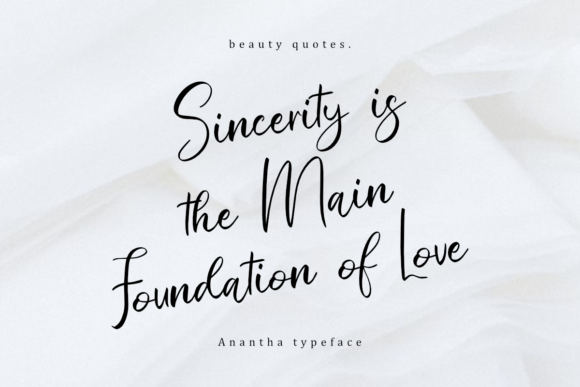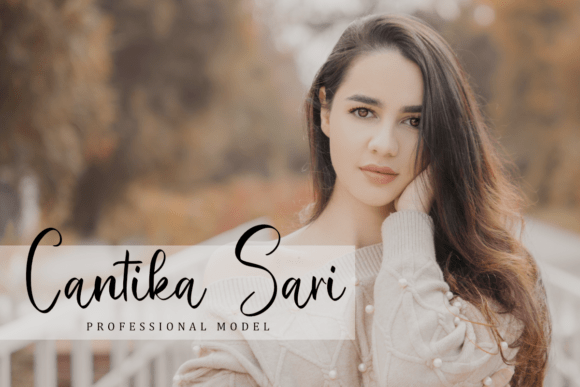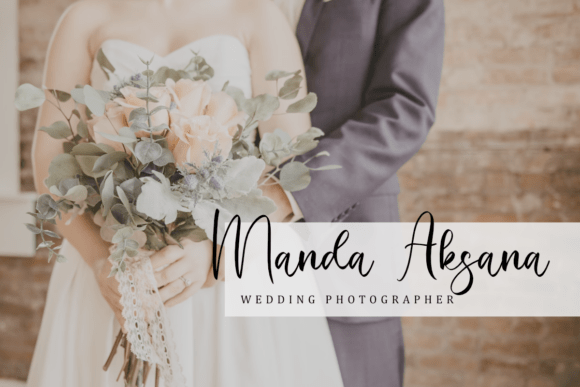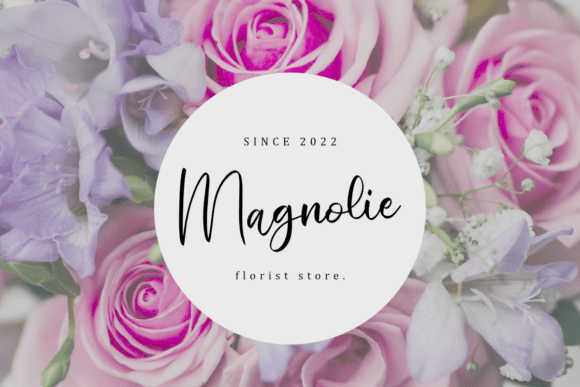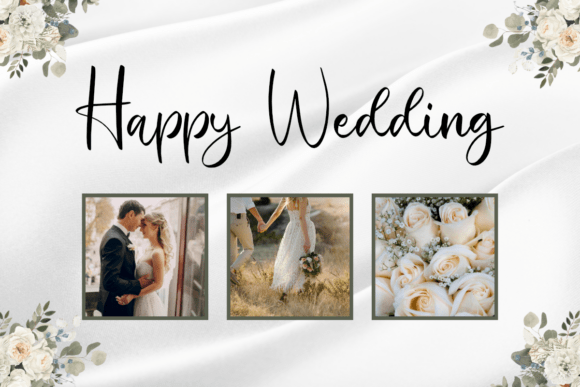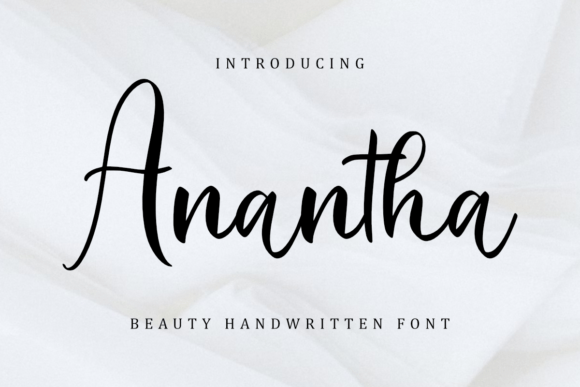
Introducing Anantha Font: The Epitome of Elegance and Femininity
In the world of typography, few fonts manage to capture the essence of elegance and femininity as effortlessly as Anantha. This stunning beauty handwritten font is a masterpiece of design, boasting flowing curves and delicate strokes that exude sophistication and refinement. Whether you’re a designer, craftsperson, or simply someone who appreciates the art of beautiful writing, Anantha is sure to captivate your heart and inspire your creativity.
The Characteristics of Anantha Font
Anantha’s unique charm lies in its intricate details and carefully crafted letterforms. Each stroke is meticulously designed to convey a sense of fluidity and movement, giving the font a dynamic and organic feel. The flowing curves and rounded edges of Anantha’s letters evoke a sense of warmth and approachability, making it perfect for designs that require a personal touch.
One of the standout features of Anantha is its exceptional legibility. Even at smaller font sizes, the letters remain clear and easy to read, making it an excellent choice for body text and captions. However, it’s in headlines, titles, and short phrases that Anantha truly shines, adding a touch of luxury and glamour to any design.
Ideal Uses for Anantha Font
Anantha’s versatility and aesthetic appeal make it suitable for a wide range of design applications. Here are some of the ideal uses for this beautiful font:
- Wedding Invitations: Add a touch of romance and sophistication to your wedding invitations, save-the-date cards, and other wedding-related materials with Anantha’s elegant script.
- Personal Branding: Establish a strong brand identity with Anantha’s unique and feminine style, perfect for lifestyle, beauty, and fashion brands.
- Luxury Packaging: Elevate your product packaging with Anantha’s luxurious and high-end feel, ideal for premium products and bespoke items.
- Romantic Quotes: Add a touch of whimsy and romance to your social media posts, blog articles, and other digital content with Anantha’s beautiful script.
Why Choose Anantha Font?
With so many fonts available, why choose Anantha? Here are a few compelling reasons:
- Unique Style: Anantha’s distinctive design sets it apart from other fonts, ensuring your designs stand out from the crowd.
- Elegance and Sophistication: Anantha’s flowing curves and delicate strokes evoke a sense of luxury and refinement, perfect for high-end designs.
- Easy to Read: Despite its elegant appearance, Anantha remains highly legible, making it suitable for both headlines and body text.
- Versatile: Anantha can be used for a wide range of design applications, from wedding invitations to luxury packaging.
Tips for Using Anantha Font Effectively
To get the most out of Anantha, here are some tips for using the font effectively:
- Pair with Neutral Colors: Anantha’s elegance is best complemented by neutral colors like white, beige, and soft pastels.
- Use for Headlines and Titles: Anantha’s unique style makes it perfect for headlines and titles, adding a touch of luxury and glamour to your designs.
- Experiment with Ligatures: Anantha features beautiful ligatures that can add an extra touch of elegance to your designs.
- Keep it Simple: Avoid over-accessorizing your design with too many fonts or graphics. Let Anantha’s beauty shine through with a simple, yet effective design.
| Font Name | Anantha Font |
| Author | Font-Tastic |
Anantha font is a true masterpiece of typography, offering a unique blend of elegance, sophistication, and femininity. With its flowing curves, delicate strokes, and exceptional legibility, Anantha is the perfect choice for designers and craftspersons looking to add a touch of luxury and refinement to their designs. Whether you’re creating wedding invitations, personal branding materials, luxury packaging, or romantic quotes, Anantha is sure to inspire your creativity and leave a lasting impression.